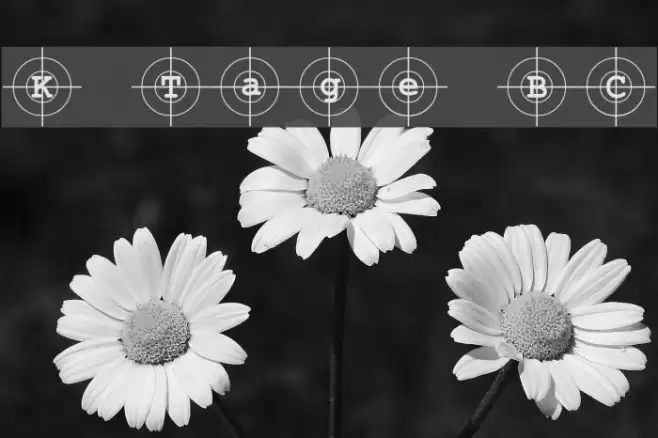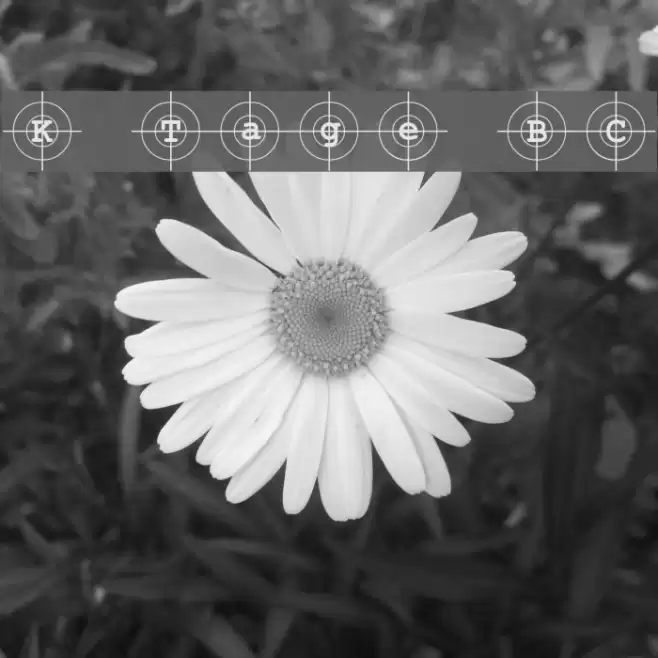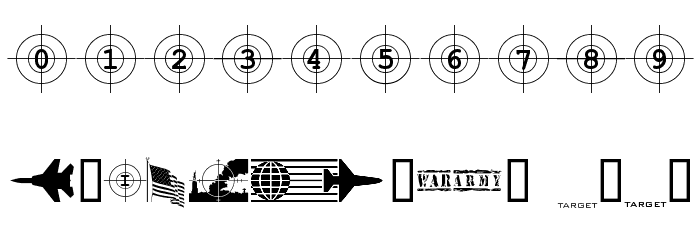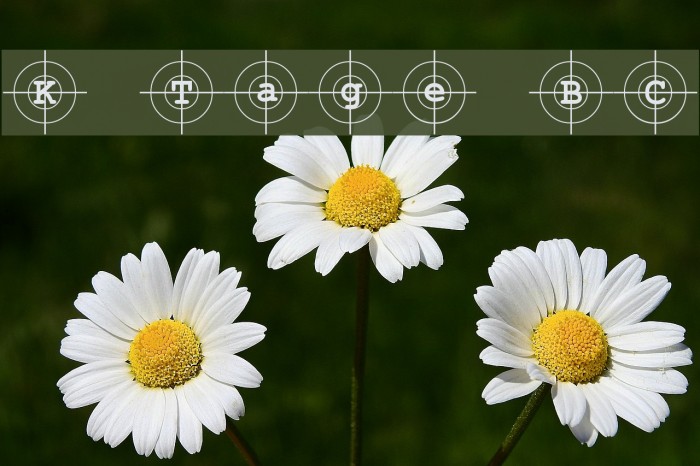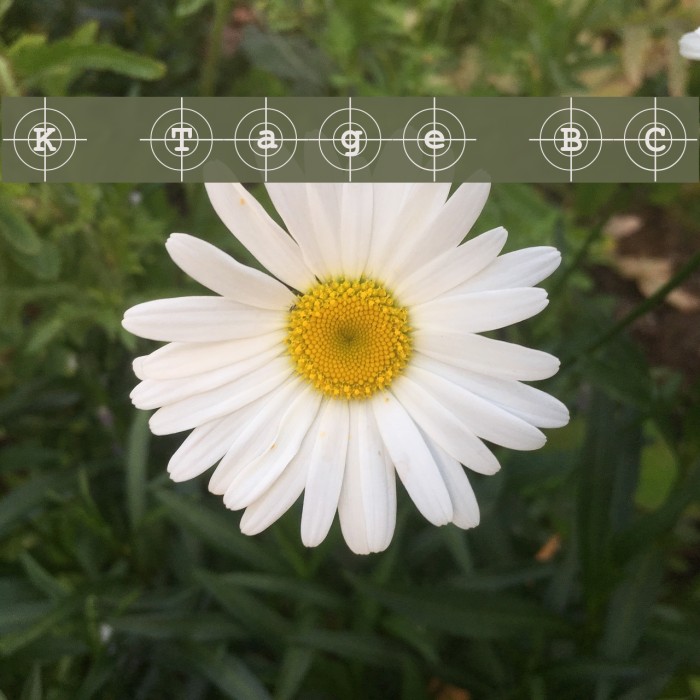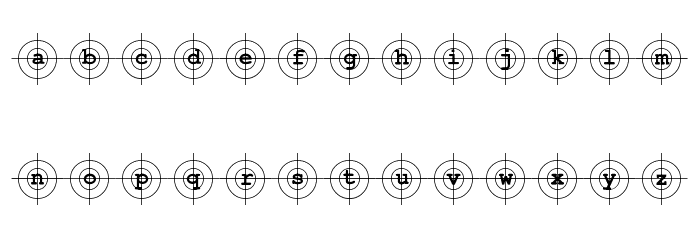
Kosovo Target BC Font
Kosovo Target BC Description
This font features characters enclosed within a target-like design, giving it a unique and thematic appearance. Each letter and number is centered within a circular target, complete with crosshairs. This design choice creates a bold and striking visual impact, making it ideal for projects that require a strong, thematic presence. The font maintains a consistent style across uppercase, lowercase, and numerical characters, ensuring uniformity. The additional symbols and graphics at the bottom, such as planes and flags, complement the military or tactical theme, enhancing its potential use in related projects.
A bold, target-themed font with characters enclosed in circular crosshairs from Crazy fonts.
- Proposed Projects: Ideal for military-themed designs, video game graphics, posters, and branding that requires a strong, thematic impact.
- Use Case: Headlines, Logos, Thematic Posters